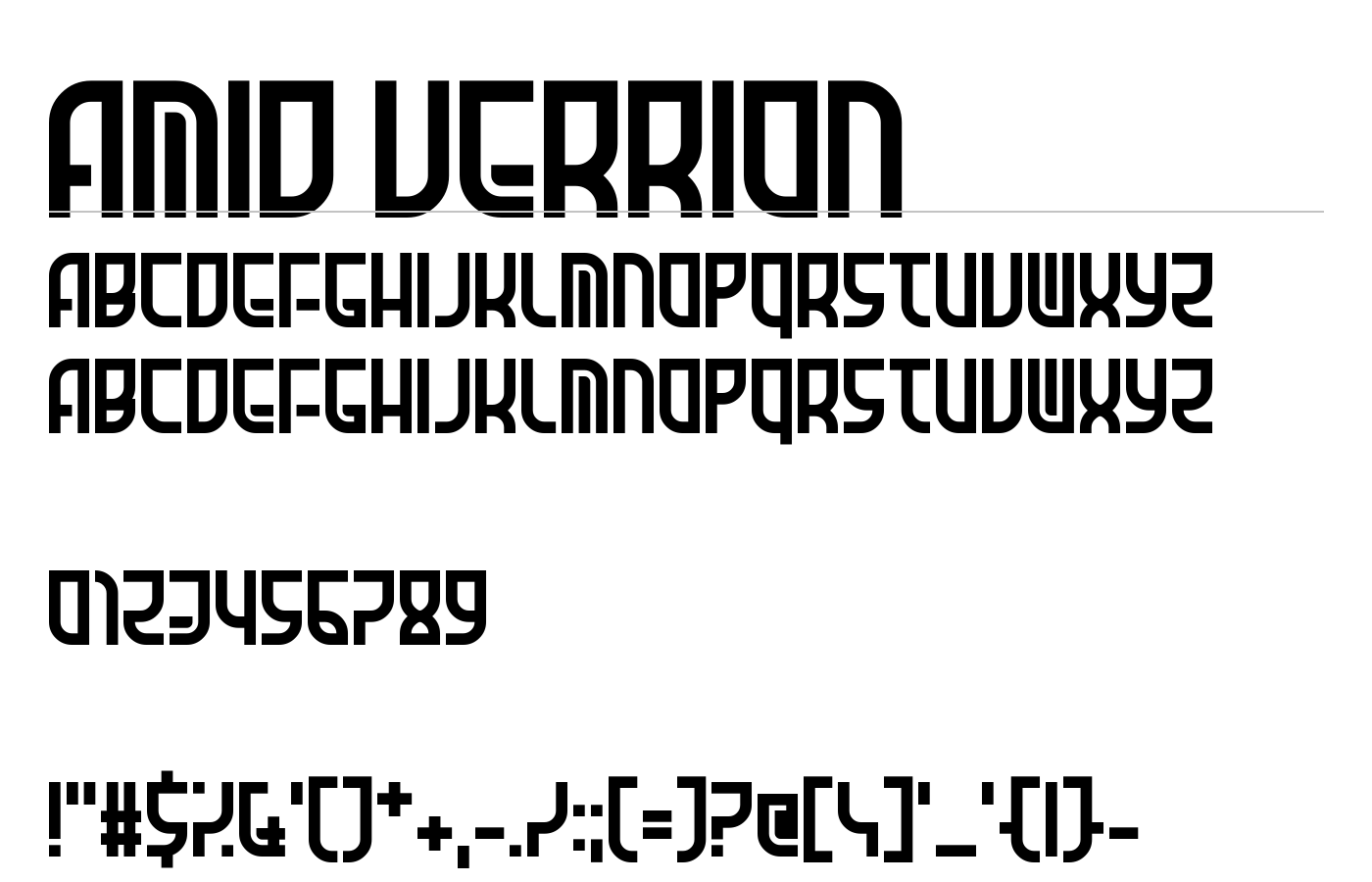
Amid Verrion is a bold, condensed sans-serif font with a strong geometric influence, characterized by sharp corners and a futuristic style. Its tall, narrow letterforms and distinctive angular details give it a modern and edgy personality, making it ideal for striking headlines, logos, and branding that demand a unique, tech-forward look. This font works best in display settings where its clean, architectural design can stand out and convey innovation and strength.
Amid Verrion Font
About Amid Verrion Font